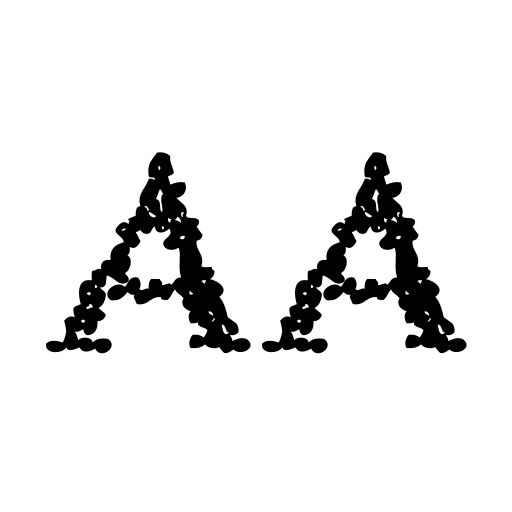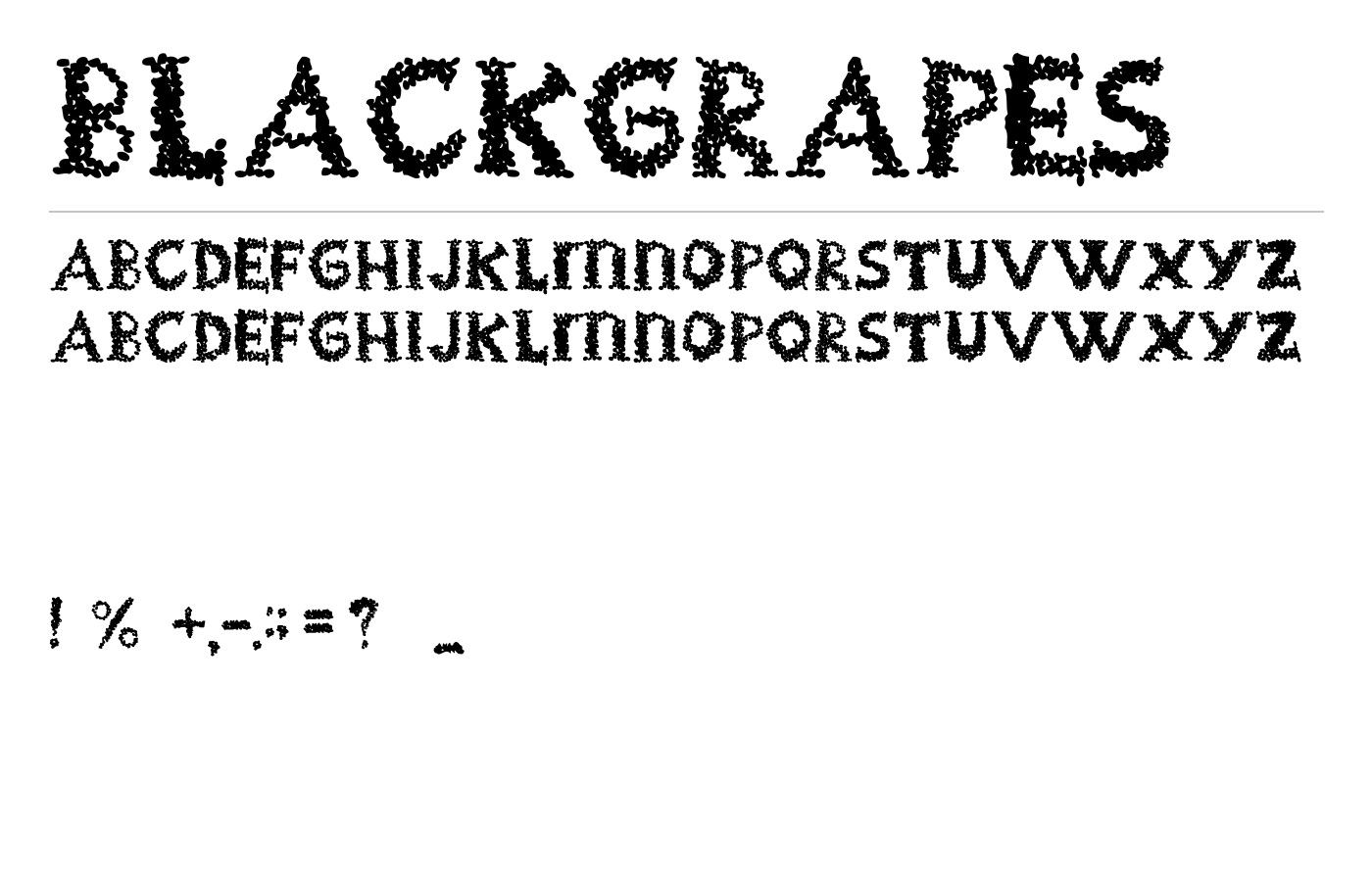
BlackGrapes is a playful and unique display font featuring a textured, dotted style that gives the appearance of clustered grapes, creating a fun and organic feel. Its uppercase design with irregular edges conveys a casual, hand-crafted vibe, making it ideal for creative branding, packaging, and eye-catching headlines where a lively, quirky personality is desired.
BlackGrapes Font
About BlackGrapes Font